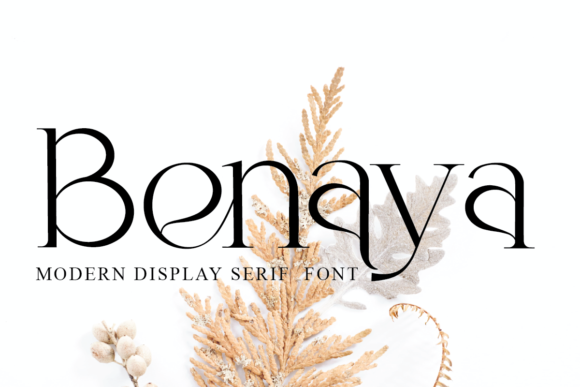
The Designer’s Delight: A Deep Dive into the Benaya Font
I’ll never forget the frustration of working on a project, hours pouring over design elements, only to hit a roadblock: the perfect font. My client wanted something elegant, modern, and versatile, but I just couldn’t seem to find it. That was until I stumbled upon the Benaya font. **It was love at first sight!** ✨
Benaya is a modern, thin lettered and elegant serif font that has quickly become a staple in my design toolkit. This font is PUA encoded, which means you can access all of the glyphs and swashes with ease! In this article, I’ll share my experience with Benaya, its features, and how to make the most of it in your designs.
- ✨ Elegant and Versatile Style: Benaya’s incredibly versatile style makes it perfect for a wide range of design projects, from luxury branding to wedding invitations.
- ✅ PUA Encoding: The PUA encoding makes it easy to access all the glyphs and swashes, giving you endless creative possibilities.
- 💫 Modern and Thin Lettering: The font’s modern and thin lettering gives it a sleek and sophisticated look that’s perfect for designs that need a touch of elegance.
While Benaya is an amazing font, there are a few things to keep in mind: ⚠️
- 🤔 Legibility at Small Sizes: Like many thin lettered fonts, Benaya can be a bit tricky to read at very small sizes. Make sure to test it in your design to ensure it’s legible.
- ⚠️ Limited Use in Body Text: While Benaya is perfect for headings and titles, it’s not ideal for body text. Its elegance and sophistication are best used to draw attention to specific design elements.
Benaya was designed with inspiration from classic serif fonts and a modern twist. Its creator aimed to craft a font that would be both elegant and versatile, perfect for a wide range of design projects. Whether you’re designing a luxury brand or a wedding invitation, Benaya is sure to impress.
| Font Name | Benaya Font |
| Author | Muksal Creative |
PUA (Private Use Area) encoding is a way of encoding fonts that allows for custom glyphs and swashes. This means that you can access a wide range of design elements within the font, making it incredibly versatile.
Q: Is Benaya suitable for body text?
While Benaya is perfect for headings and titles, it’s not ideal for body text. Its elegance and sophistication are best used to draw attention to specific design elements.